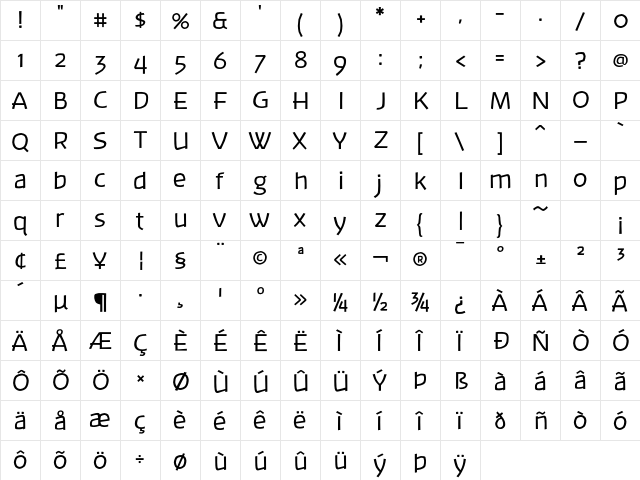
Banksia Regular Font Preview
Banksia Regular
Banksia Regular Font Details
| Designer | Daniel Midgley |
Design Context for Banksia Typeface
Banksia takes a measured approach to typography — its balanced proportions and neutral character make it a reliable workhorse for both digital and print work.
Pro Tip: Pair Banksia with a font of contrasting weight or personality to build a more expressive typographic hierarchy.